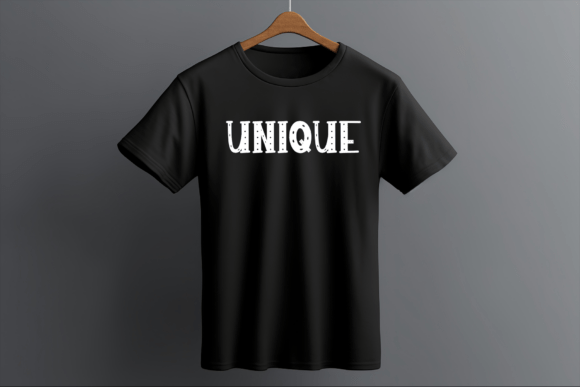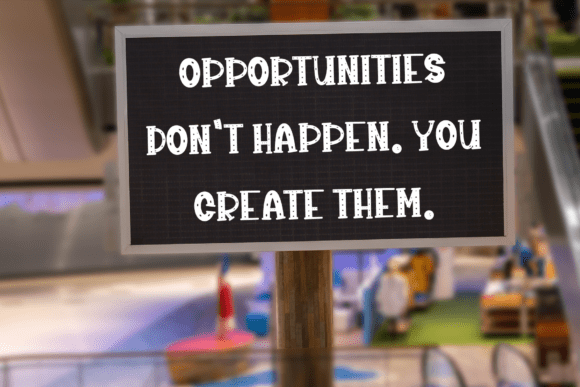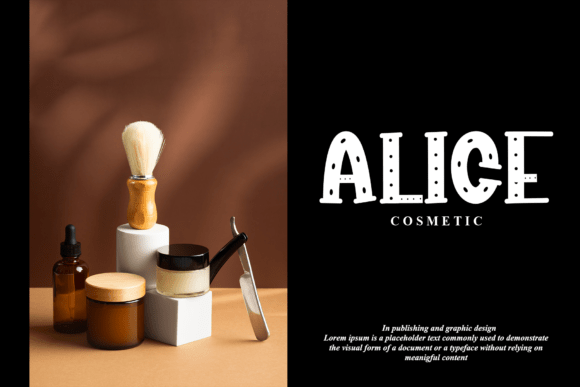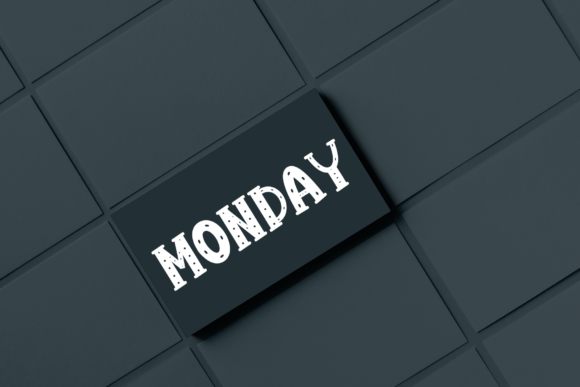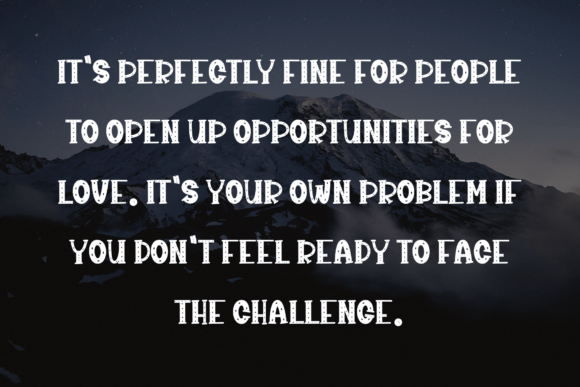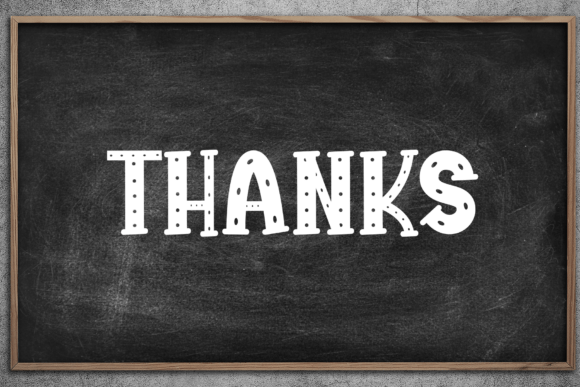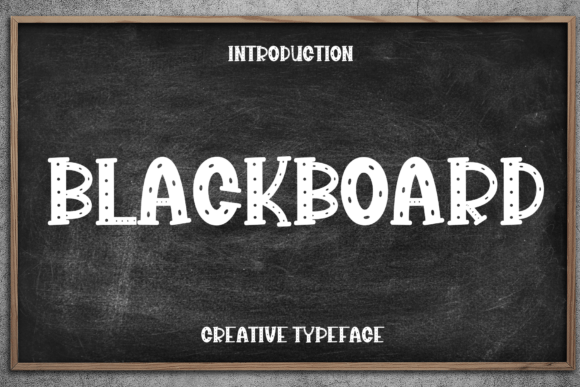
The Blackboard Font: A Charming and Nostalgic Typeface for Creative Projects
The Blackboard font is a delightful and nostalgic creative typeface that brings the classic classroom aesthetic to your digital canvas. This font features a playful, hand-drawn look with distinct “chalk-dot” detailing within each character, perfectly mimicking the texture of a real chalkboard. The Blackboard typeface is an exceptional choice for educational materials, restaurant menu boards, and creative projects that need an authentic, DIY feel.
A Perfect Fit for Educational Materials and Creative Projects
The Blackboard font is ideal for designing educational materials, such as textbooks, worksheets, and classroom posters. Its playful and nostalgic look instantly captures the attention of students and teachers alike, making it an excellent choice for back-to-school promotions, teacher’s appreciation cards, and educational blog posts. Additionally, this font is perfect for crafters and designers who want to add a personal touch to their projects, such as handmade cards, artisanal signs, and social media graphics.
Characteristics of the Blackboard Font
The Blackboard font boasts several characteristics that make it a unique and charming typeface:
- Playful, hand-drawn look: The Blackboard font features a whimsical, hand-drawn design that gives it a friendly and approachable feel.
- Chalk-dot detailing: Each character in the font includes distinct “chalk-dot” detailing, which mimics the texture of a real chalkboard.
- Authentic, DIY feel: The Blackboard font perfectly captures the nostalgic look and feel of a traditional chalkboard, making it an excellent choice for projects that require an authentic, DIY aesthetic.
Pairing the Blackboard Font with Other Design Elements
The Blackboard font pairs beautifully with simple line illustrations and hand-drawn borders, allowing its unique textures to stand out without competing for attention. This font is versatile and can be combined with various design elements to create visually appealing graphics. Some popular pairing options include:
- Simple line illustrations: Delicate line illustrations complement the Blackboard font’s playful look and add a touch of whimsy to your designs.
- Hand-drawn borders: Hand-drawn borders and frames enhance the font’s nostalgic feel and create a cohesive, DIY look.
- Colorful backgrounds: The Blackboard font looks great against colorful backgrounds, which can help to add visual interest and depth to your designs.
Using the Blackboard Font for Various Projects
The Blackboard font is an excellent choice for a wide range of projects, including:
- Back-to-school promotions: Use the Blackboard font to create eye-catching back-to-school promotions, such as posters, social media graphics, and email headers.
- Restaurant menu boards: The Blackboard font is perfect for designing restaurant menu boards, adding a touch of nostalgia and whimsy to your menu.
- Teacher’s appreciation cards: Create heartfelt teacher’s appreciation cards using the Blackboard font, adding a personal touch to your designs.
- Social media headers: Use the Blackboard font to create playful social media headers that showcase your brand’s personality and style.
The Blackboard font is a charming and nostalgic creative typeface that brings the classic classroom aesthetic to your digital canvas. Its playful, hand-drawn look and distinct “chalk-dot” detailing make it an exceptional choice for educational materials, restaurant menu boards, and creative projects that need an authentic, DIY feel. With its versatility and unique texture, the Blackboard font is sure to add a touch of personality and warmth to your designs.